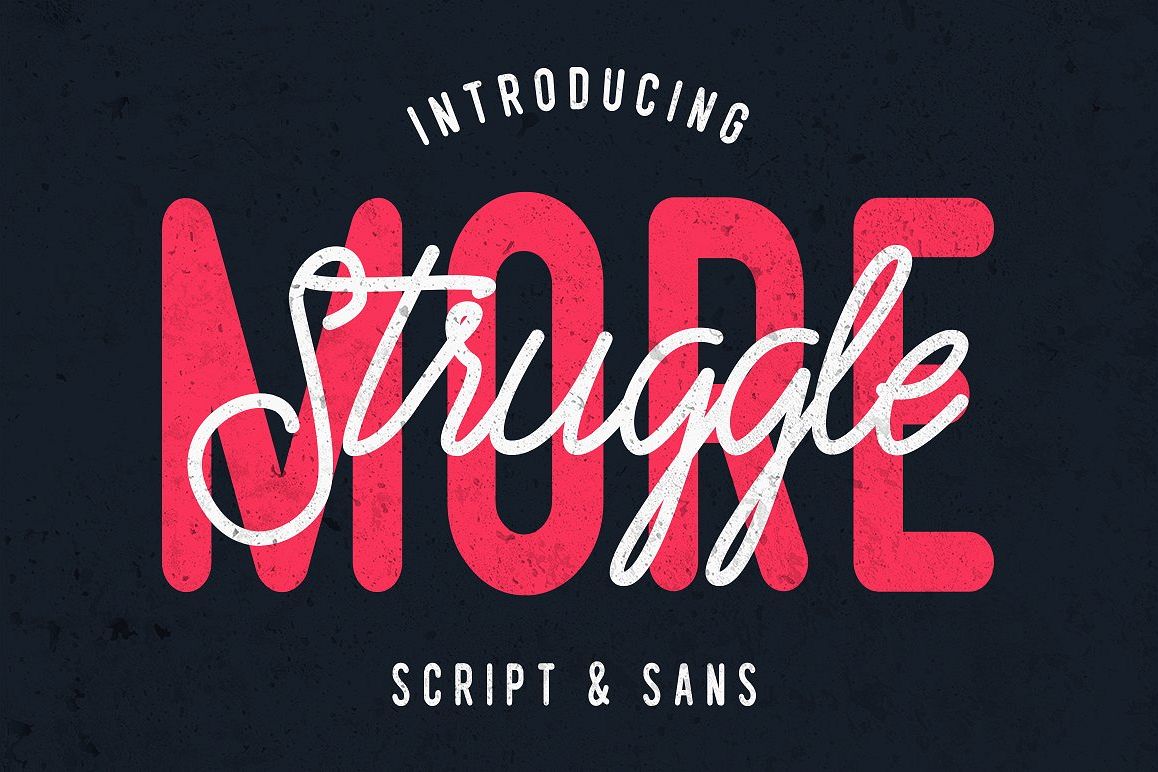
Struggle More - Script & Sans Font / Font Logo
Struggle More - Script & Sans Font
I've always loved creating Logotypes and Type pieces, and for me was hard to find the right sans serif to go with script. That's why I've decided to create this font duo. Both typefaces compliment each other very well, making this product perfect for use in logos, lettering, quotes, cards, flyers or anything you want.